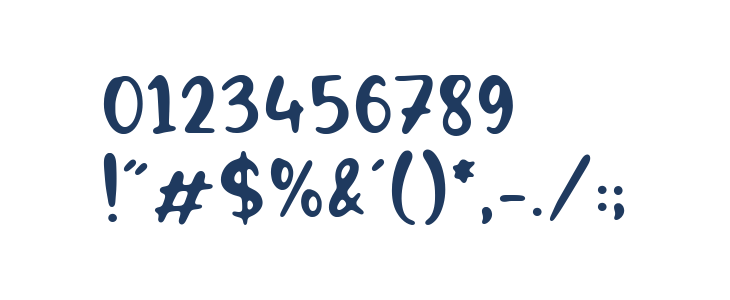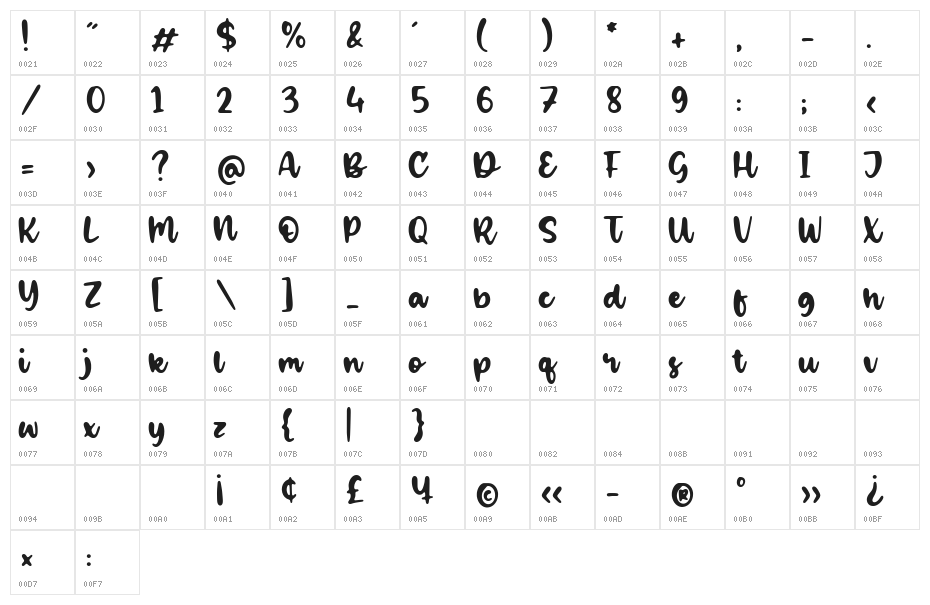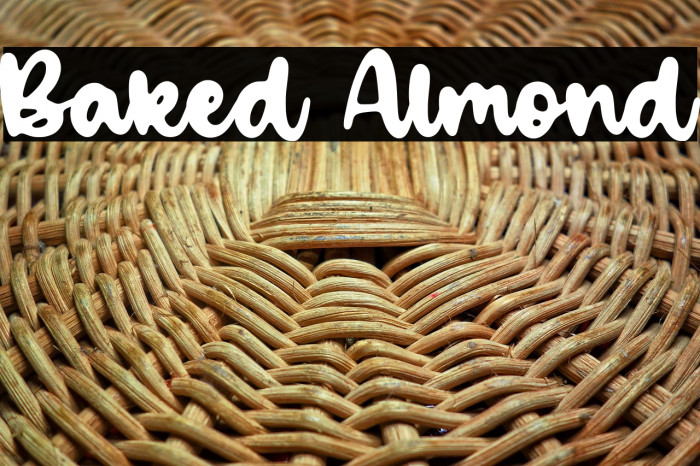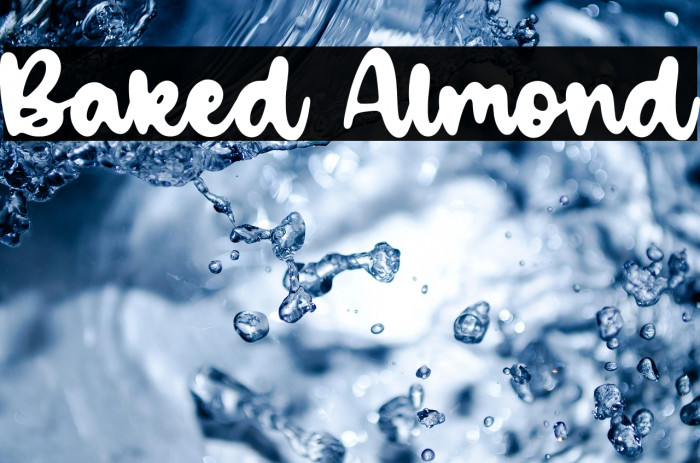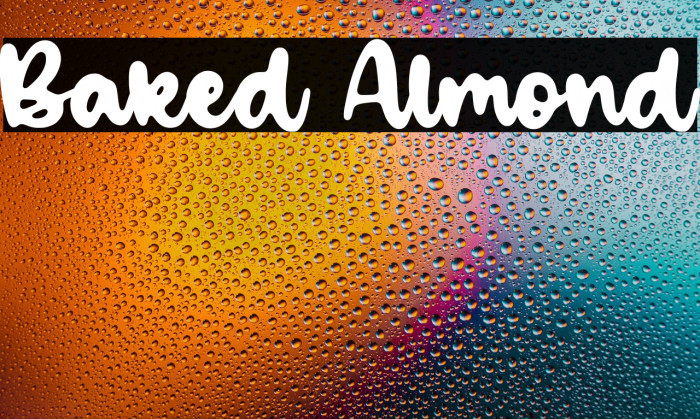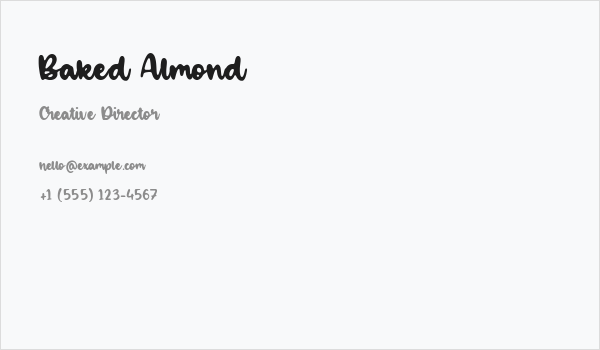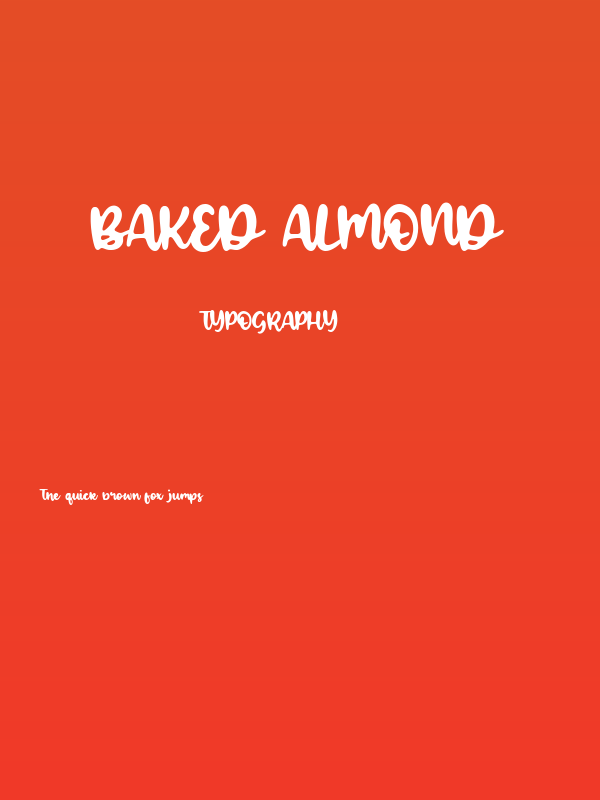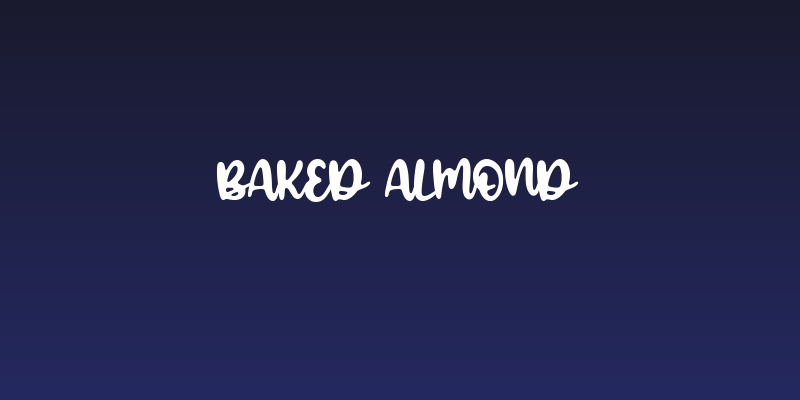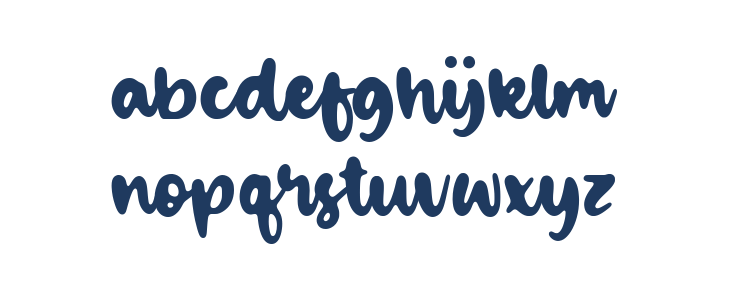
Baked Almond Font
Baked Almond Description
This font features a playful and bold handwritten style, characterized by its thick, rounded strokes and smooth curves. The letters are connected in a fluid manner, giving it a cohesive and dynamic appearance. The uppercase and lowercase letters maintain a consistent style, with a slight slant that adds to its casual and friendly feel. Numbers and special characters are designed to match the overall aesthetic, ensuring uniformity across all elements. The font's boldness makes it highly legible, even at smaller sizes, while its unique style adds a touch of personality to any text.
| Proposed Projects | Ideal for greeting cards, playful branding, children's books, and creative posters. |